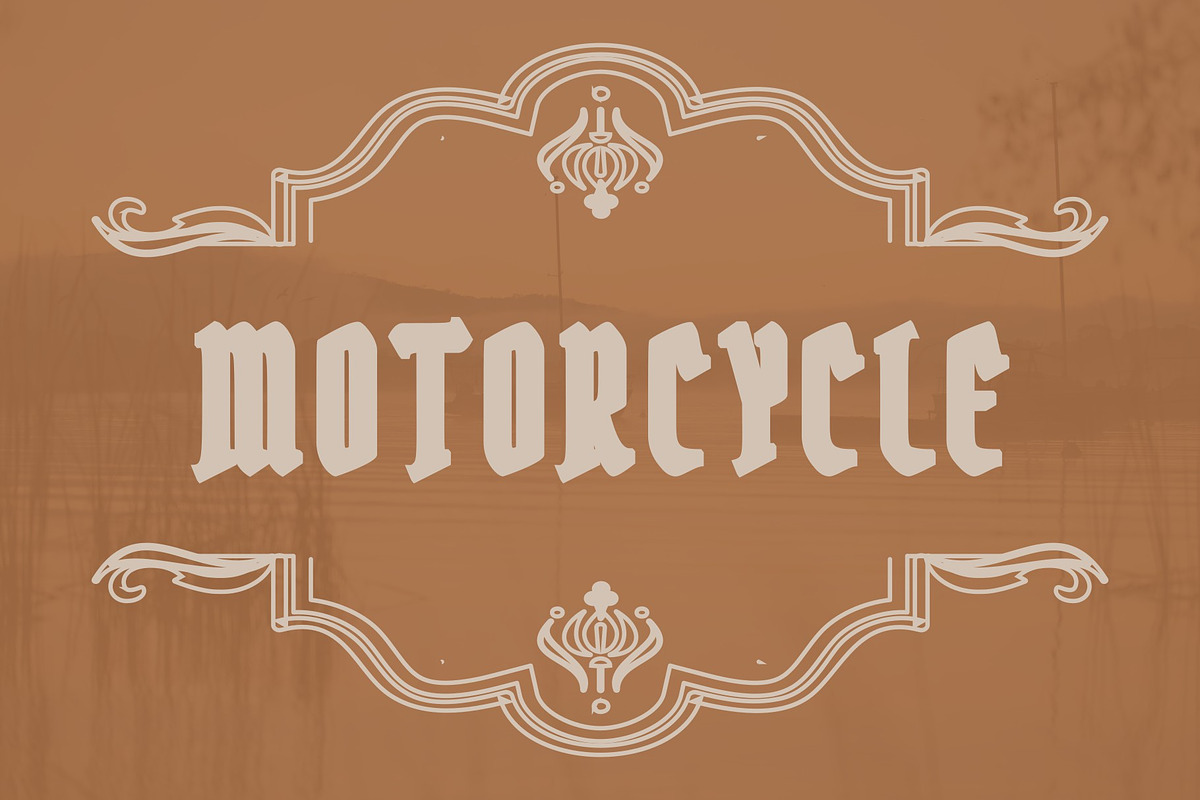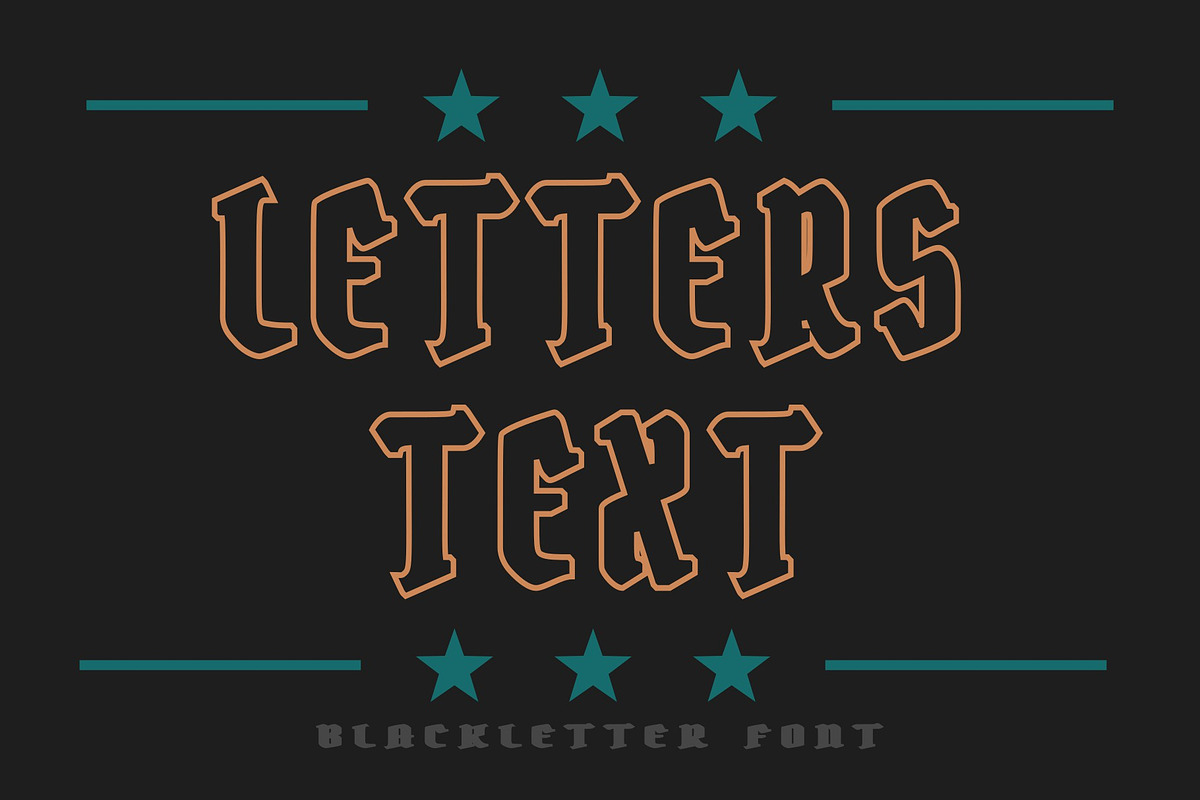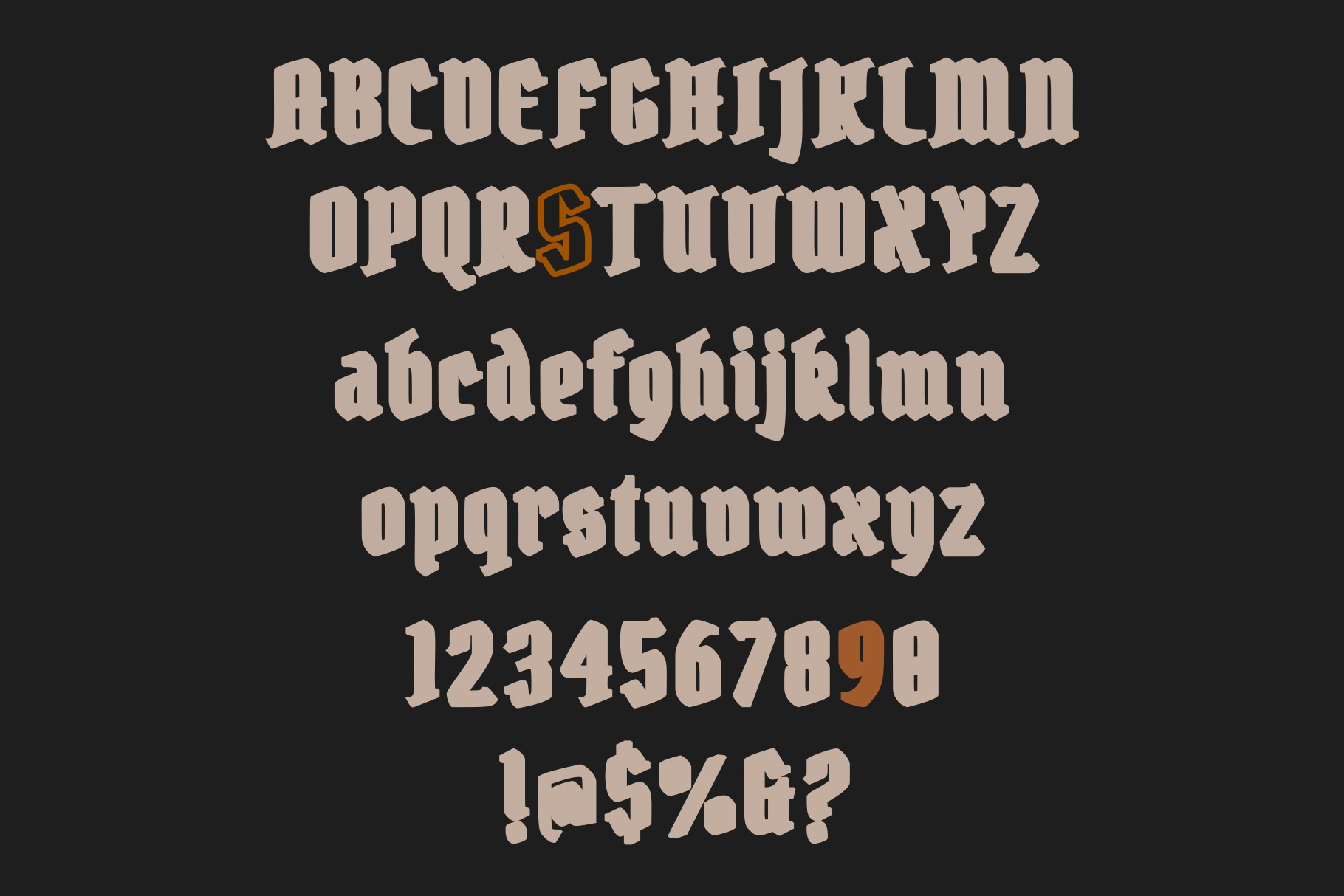
oldboy modern blackletter font
It is a blackletter font that looks vintage and cute, this typefaces is perfect for people looking for vintage aesthetic and dark feel, also suitable for any graphic designs such as branding materials, t-shirts, print, logo, poster, quotes etc.